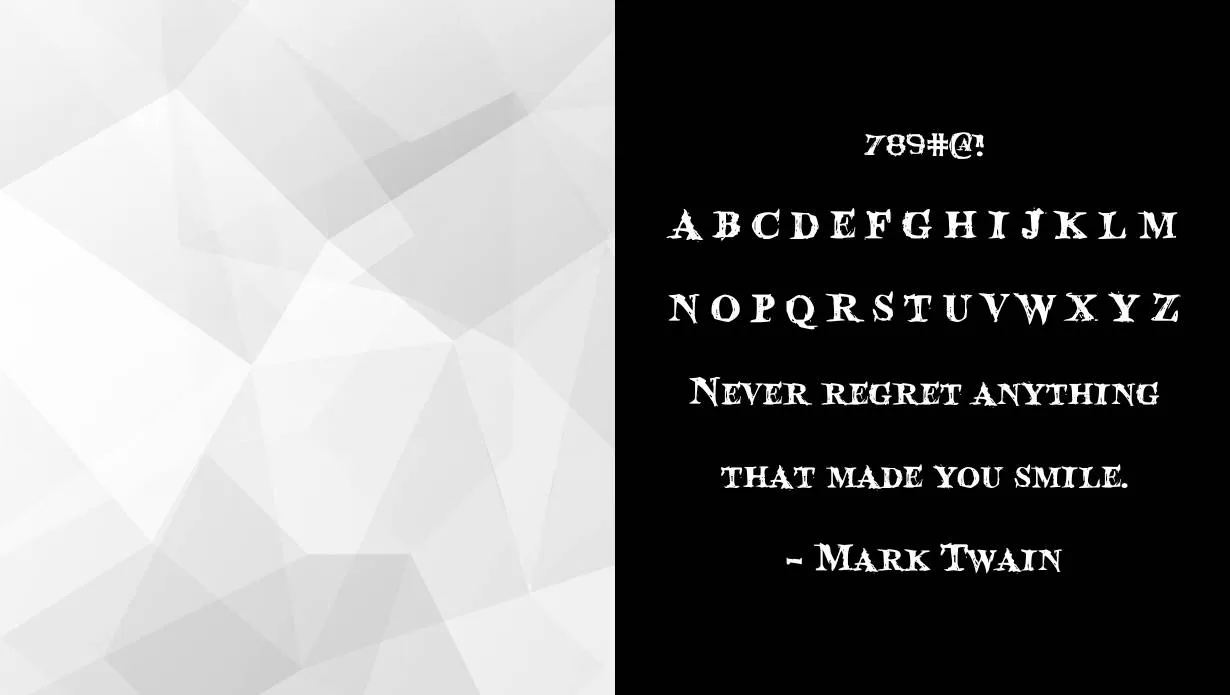
Demon Slayer Font is a Fancy typeface inspired by circus and carnival posters. This font glyph also comprised both upper- and lowercase letters, as well as numbers and punctuation. This font is first used in the logo of a very famous animated serial named Demon slayer.
The Font was created by graphic designer Daniel Zadorozny. The texturing of this typeface is great to work with the pairing of vlone font. This typeface style contains characters that will make your designs more attractive.